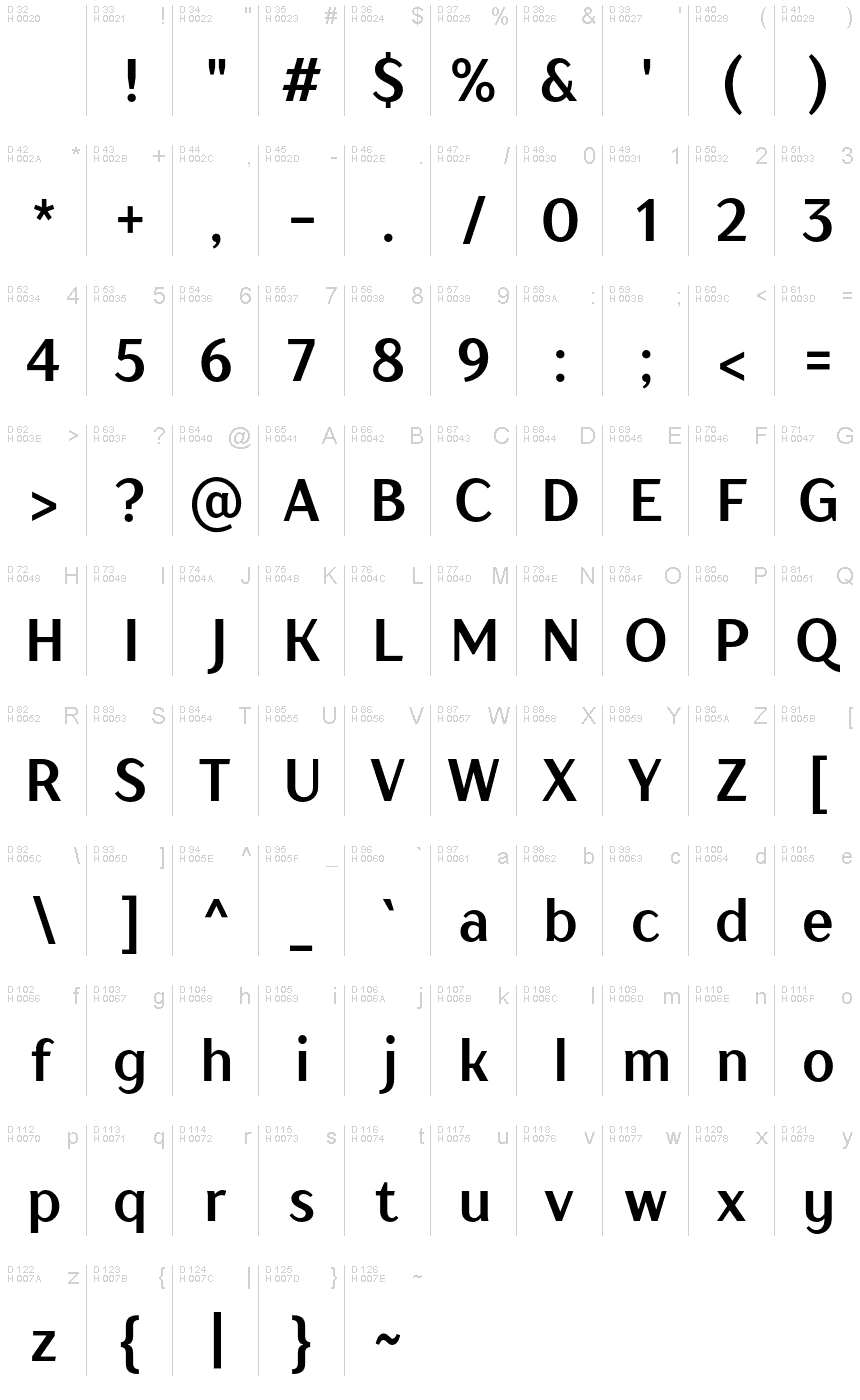
TT Drugs Trl Cnd Bold
TT Drugs Cnd Bold is a versatile and modern sans serif font that is perfect for branding, packaging, and editorial projects. Designed by TypeType Foundry, this bold typeface boasts clean lines and a condensed width that creates a sleek and contemporary feel. Its bold weight allows for emphasis on important text while maintaining readability. Whether you're creating product labels or website headlines, TT Drugs Cnd Bold will make an impact. This font is especially suitable for projects related to the health industry, technology, or fashion. Give your designs an edge with TT Drugs Cnd Bold!